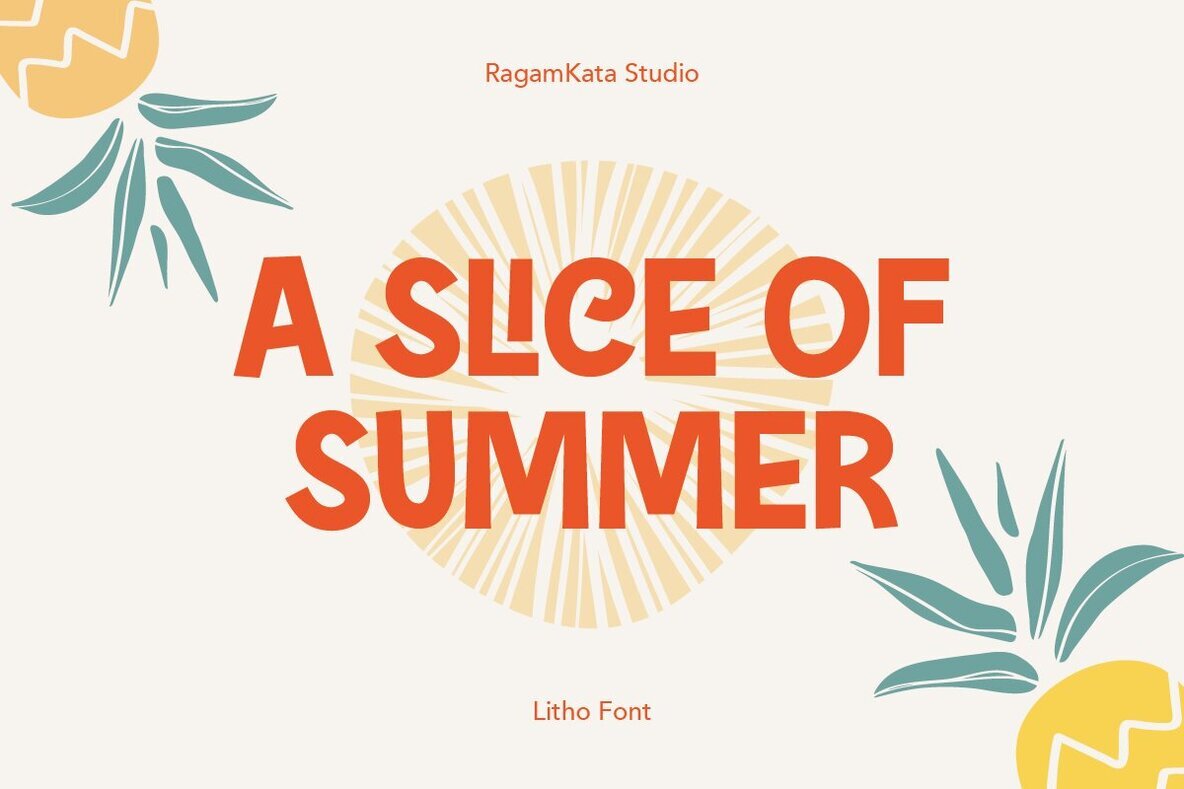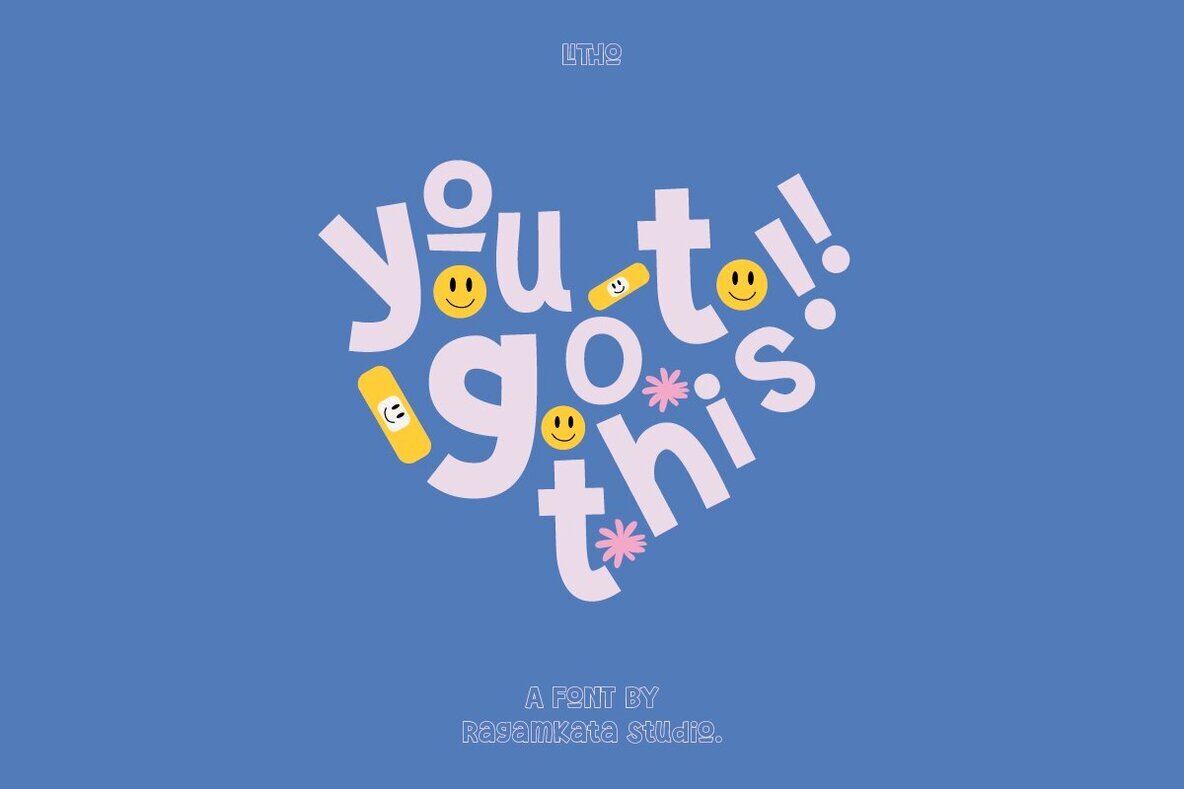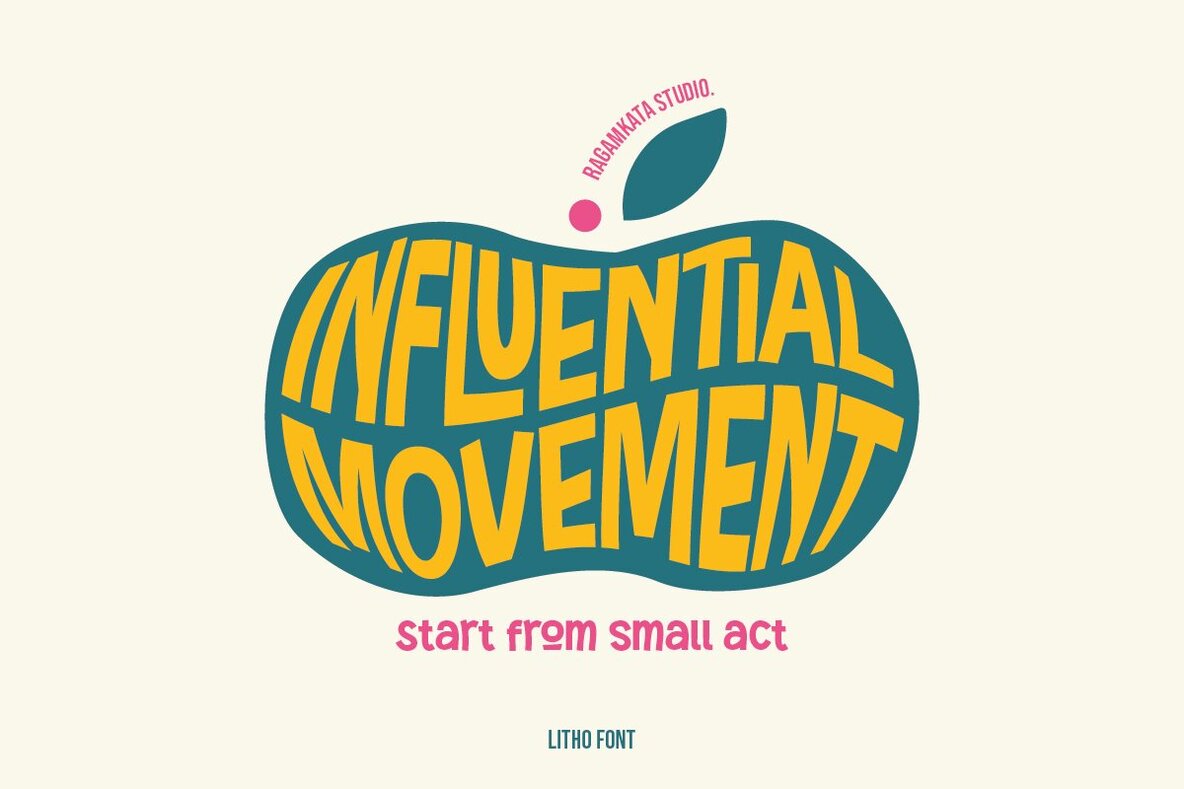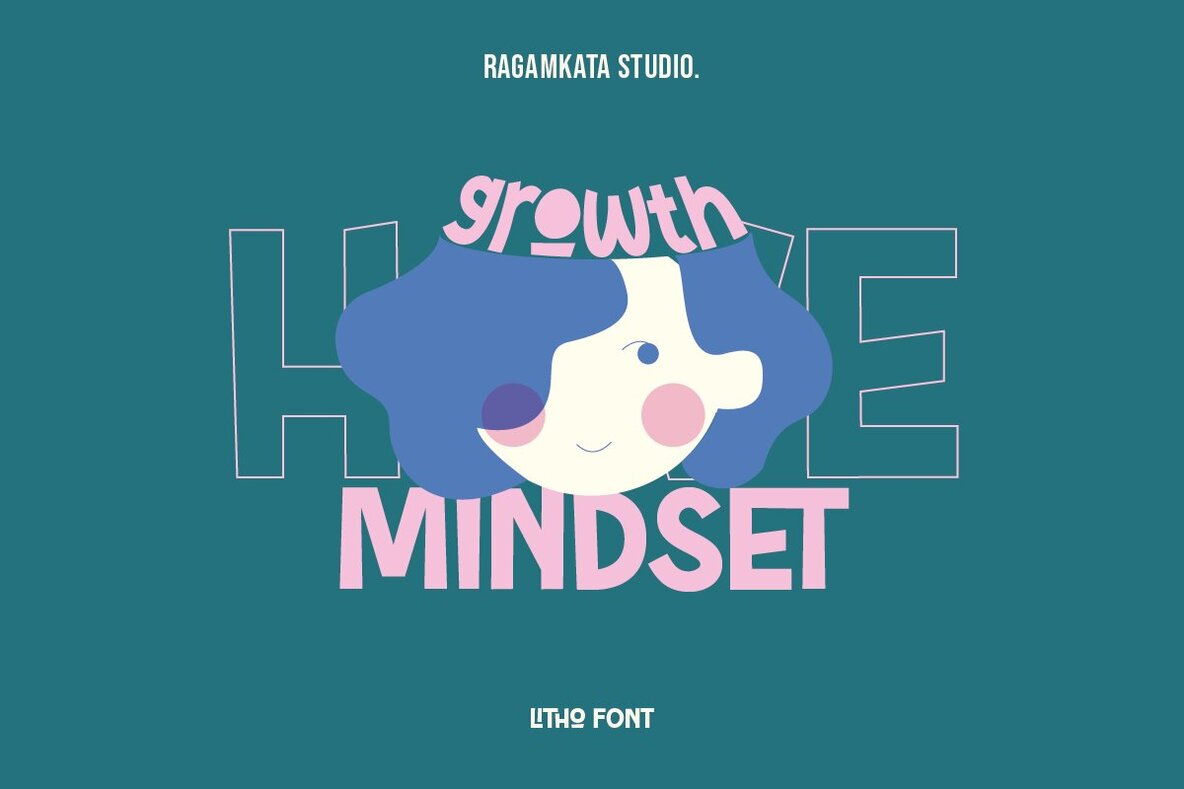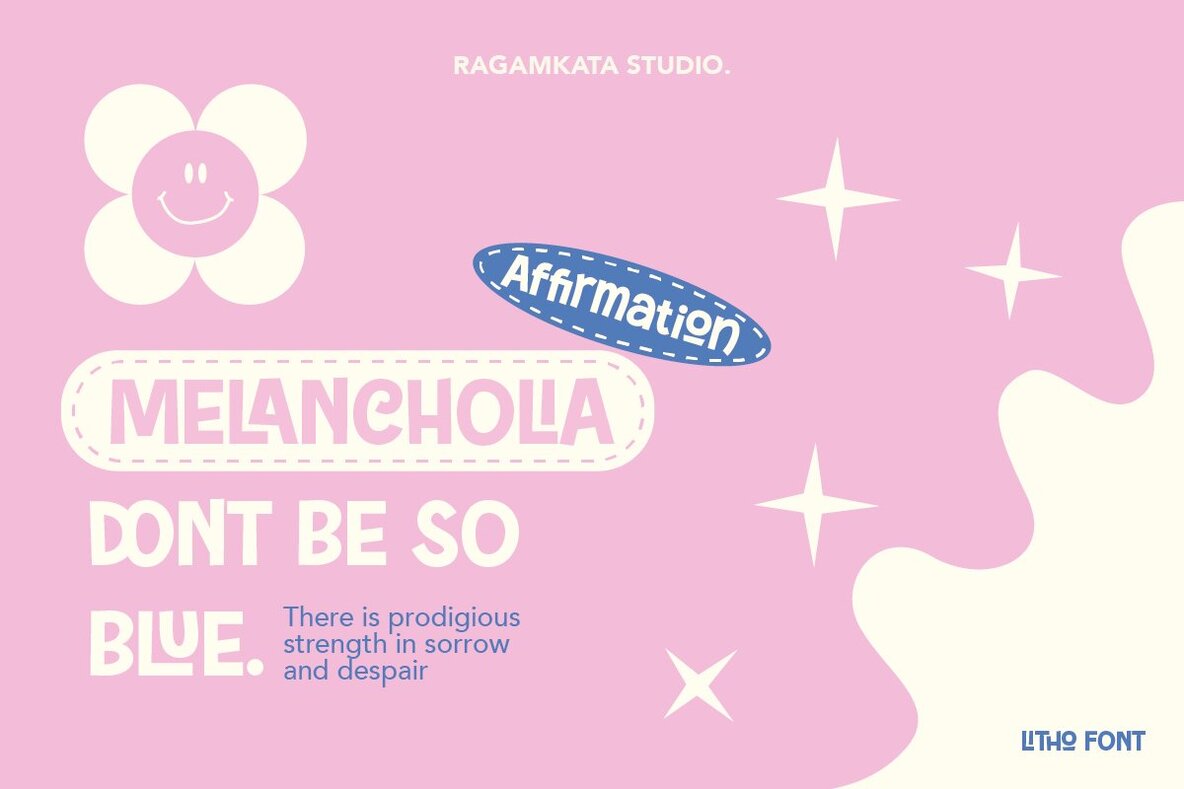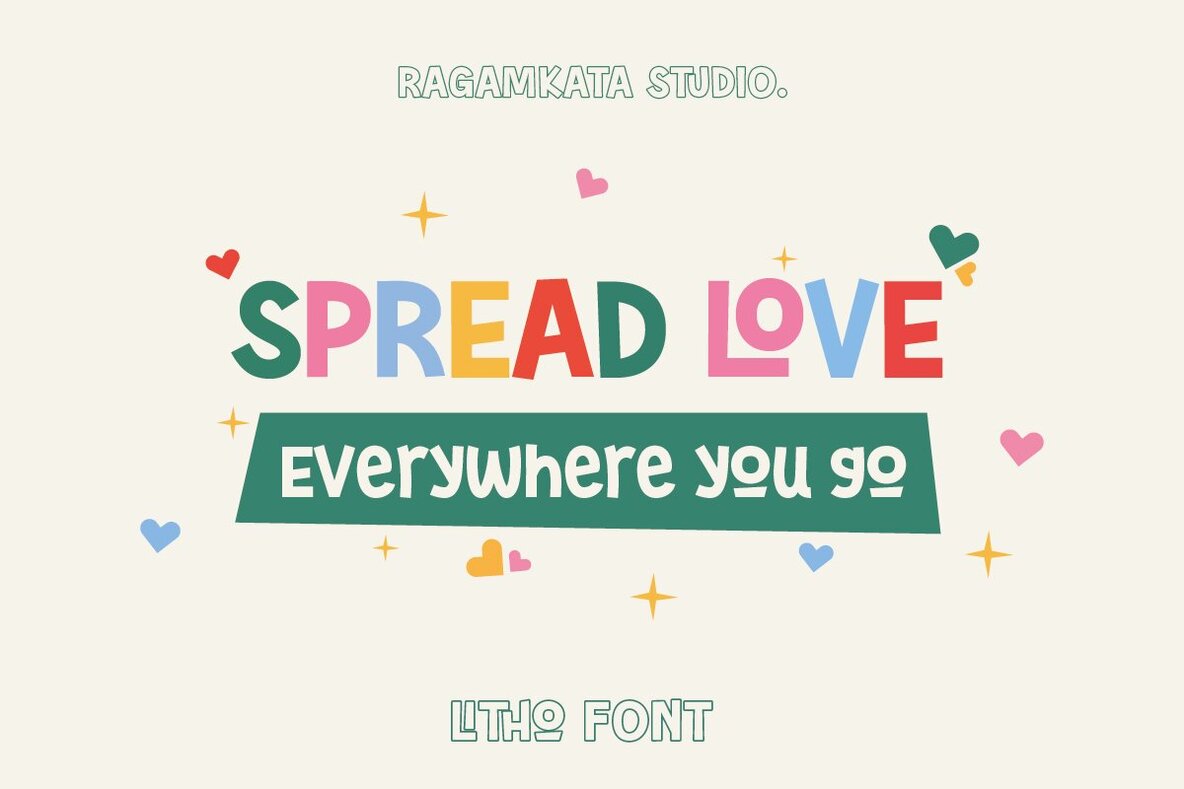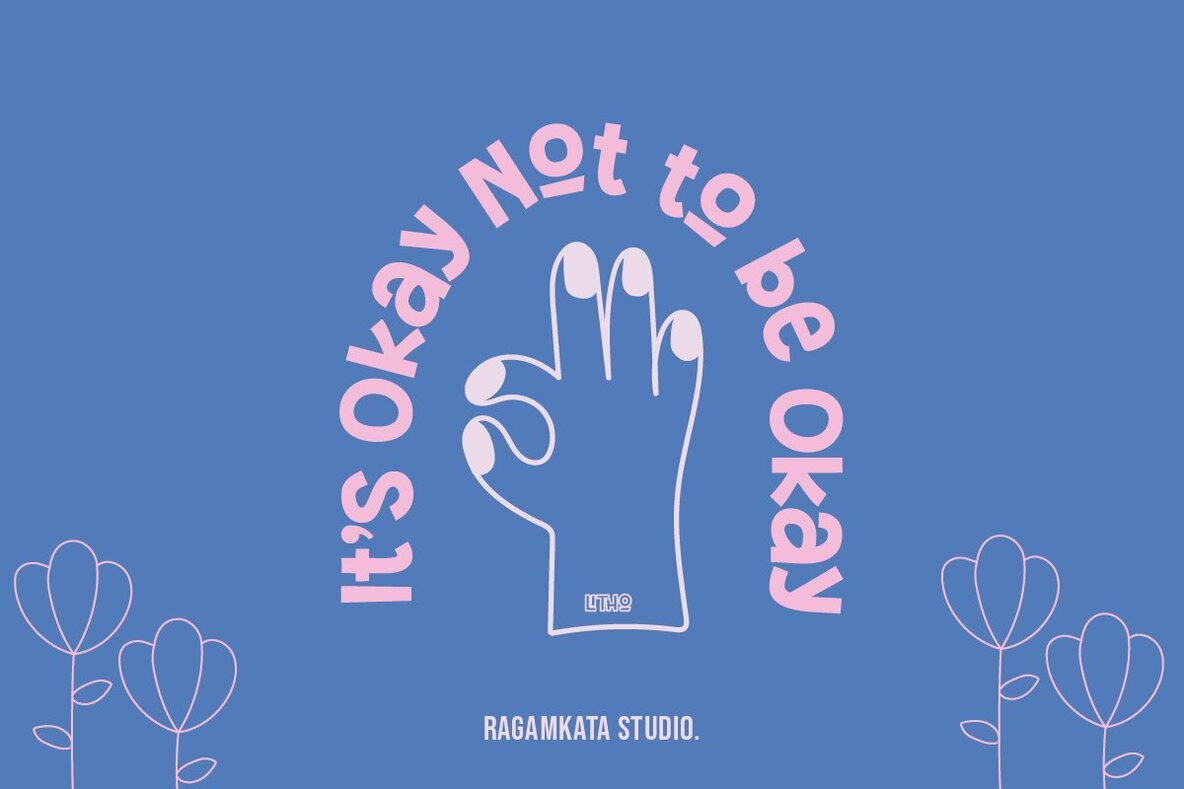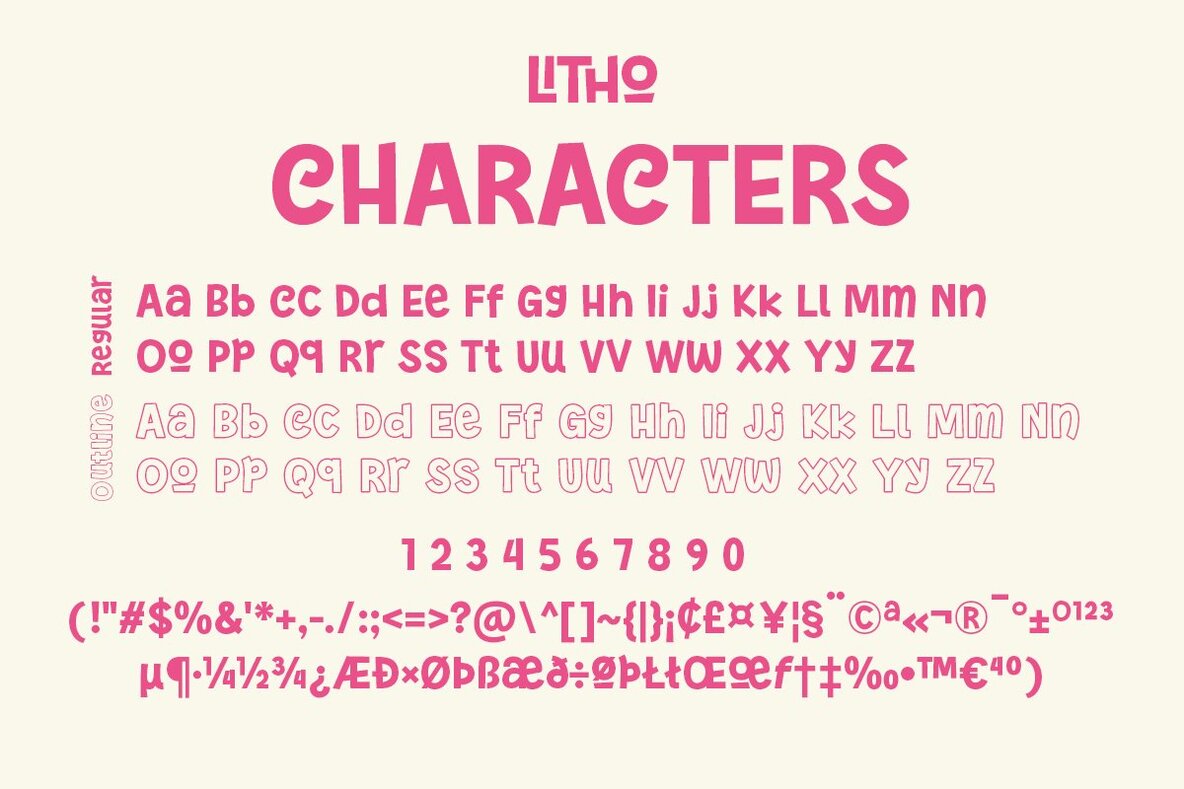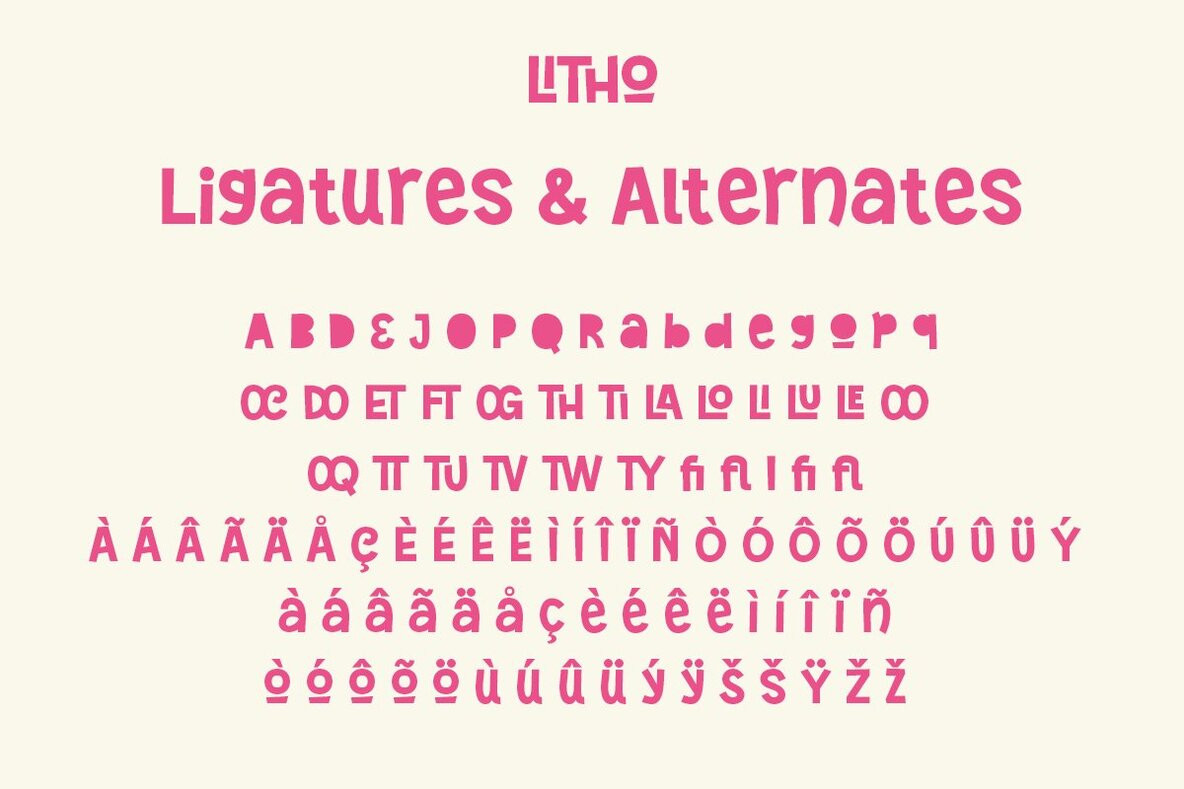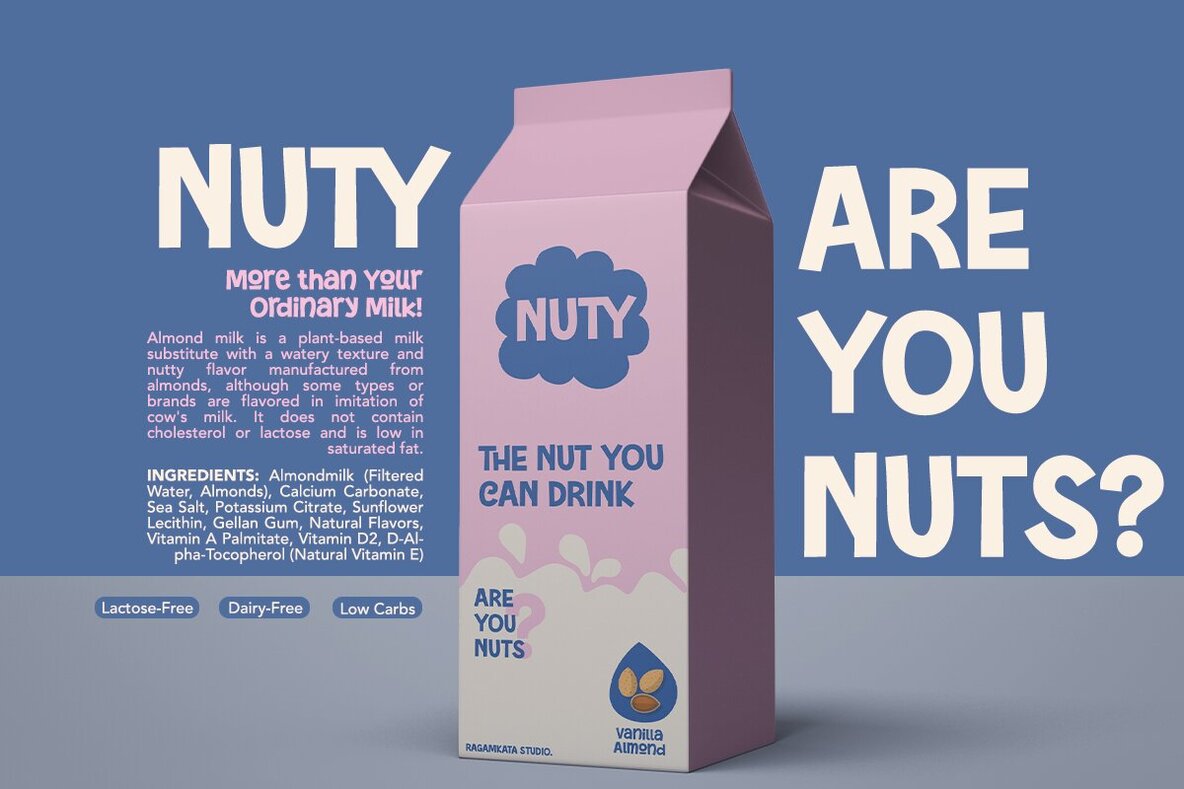
LItho Font
Litho is a unique and playful font designed to make your projects stand out. With its bold and distinctive shapes, Litho adds a fun touch to any design, ensuring it captures attention. This typeface is ideal for invitations, posters, logos, and much more. Use Litho to infuse your designs with a lively and vibrant style. If you have any questions, please contact us. For more exclusive fonts, visit our studio, "Ragamkata Studio." Enjoy crafting and bring your ideas to life!Litho: A Quirky Typeface for Eye-Catching Designs
Features of Litho Font